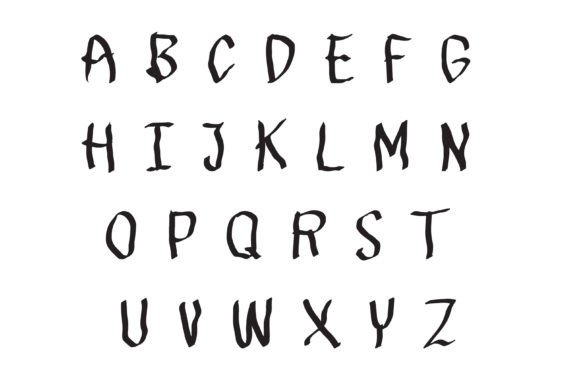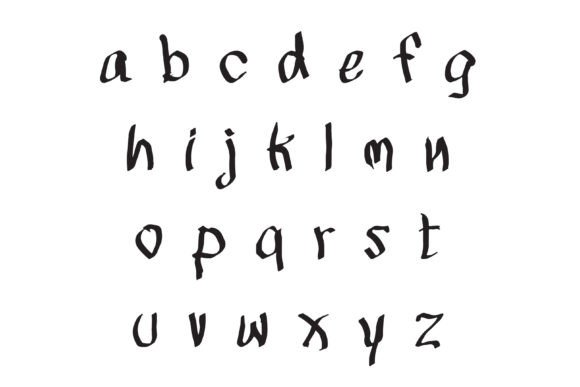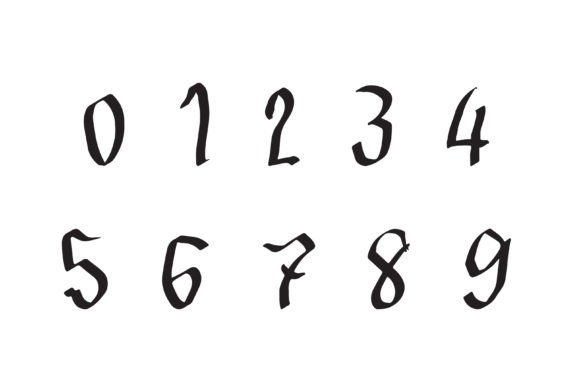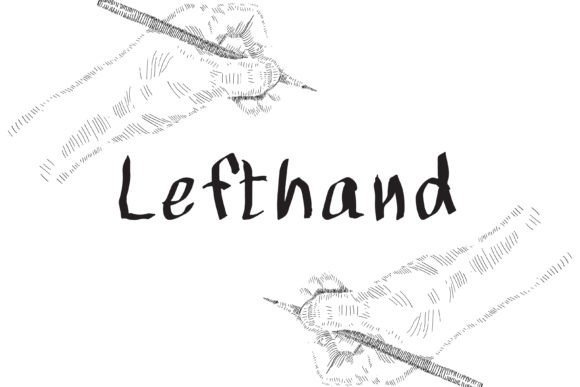
Introduction to Lefthand Font
Lefthand is a font written by a left hand.
It is suitable for funny greeting cards, posters, social media, and quotes on products like mugs or shirts .